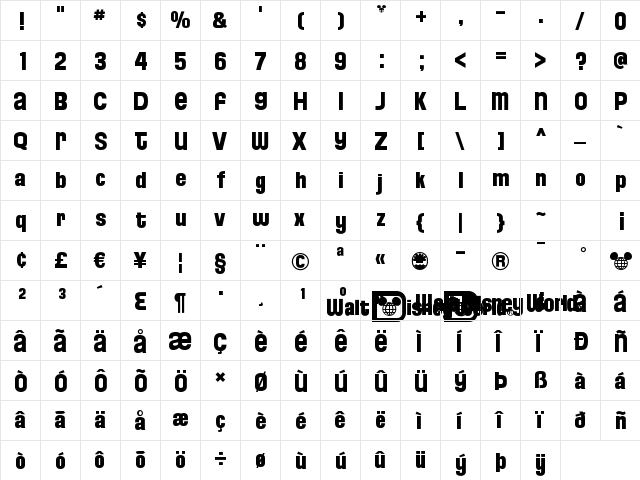
Florida Project Phase Two Regular
| Foundry | Spencer Parks and Justin Callaghan |
| Designer | Justin Callaghan (with Spencer Parks) |
Design Context for Florida Project Phase Two Typeface
Florida Project Phase Two takes a measured approach to typography — its balanced proportions and neutral character make it a reliable workhorse for both digital and print work.